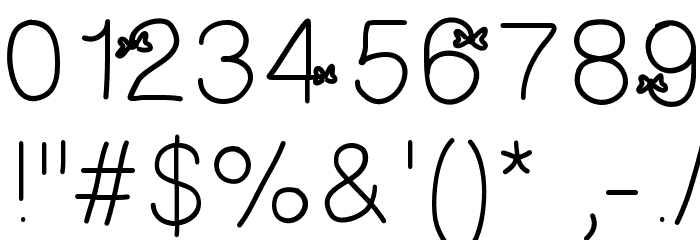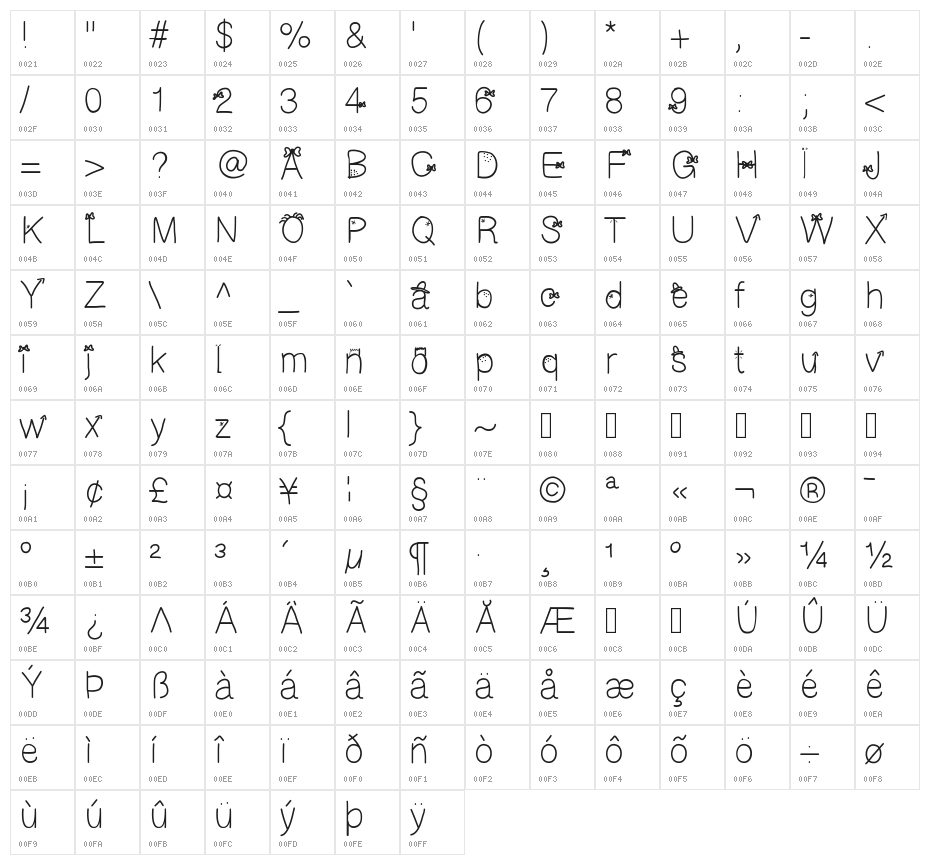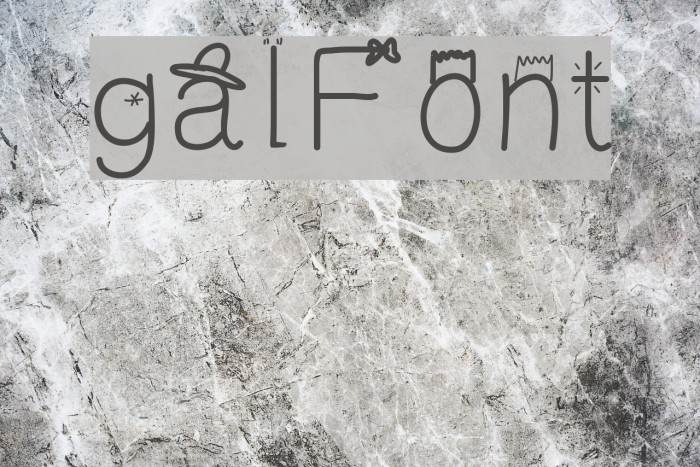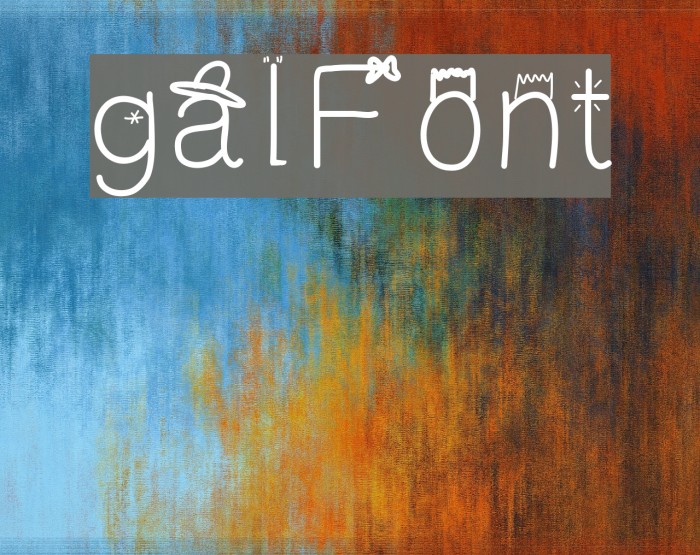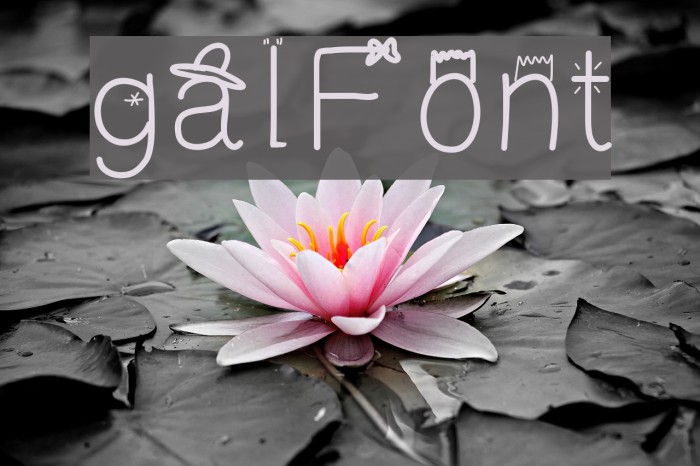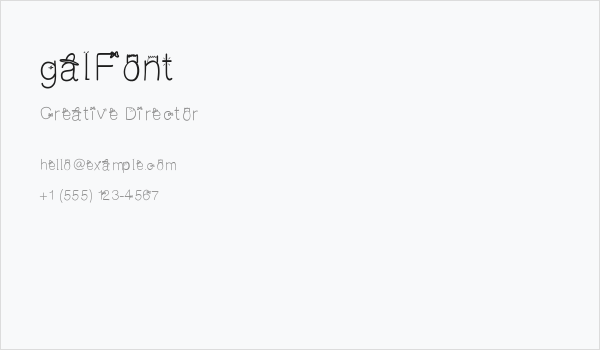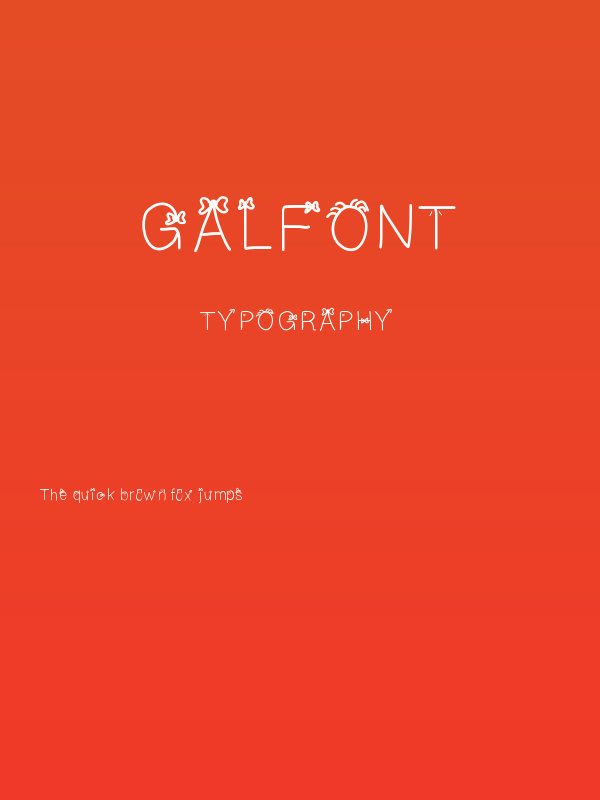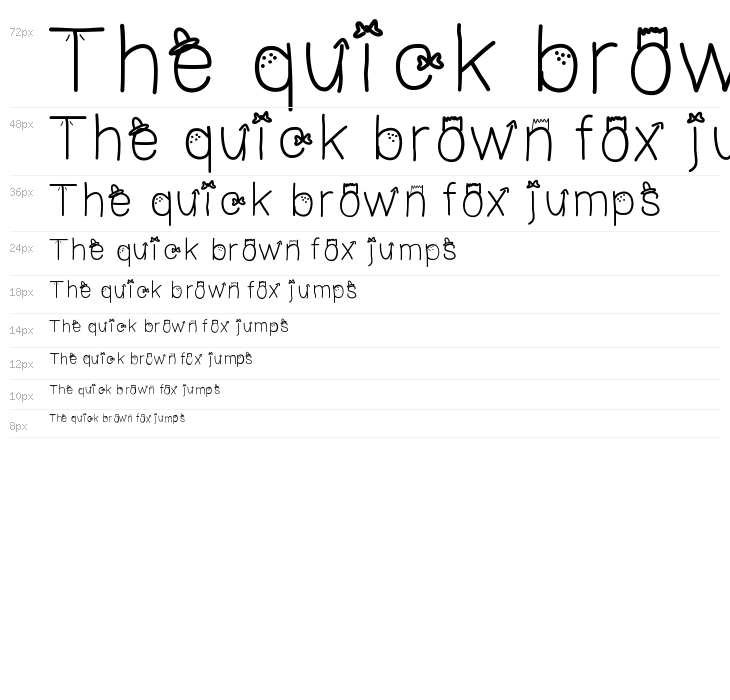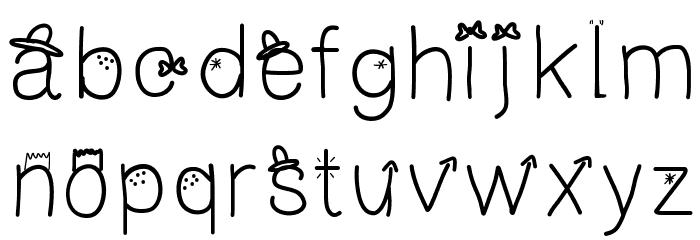
galFont Font
galFont Description
This playful and whimsical font features unique decorative elements integrated into each character, such as bows, dots, and arrows. The uppercase and lowercase letters maintain a consistent style, with a light and airy feel. The numbers and special characters also incorporate these playful elements, making the font ideal for creative and fun projects. The overall design is casual and lighthearted, with a touch of elegance due to the delicate curves and embellishments. This font is perfect for adding a charming and distinctive touch to any design.
| Proposed Projects | Ideal for children's books, playful invitations, greeting cards, and creative branding projects. |